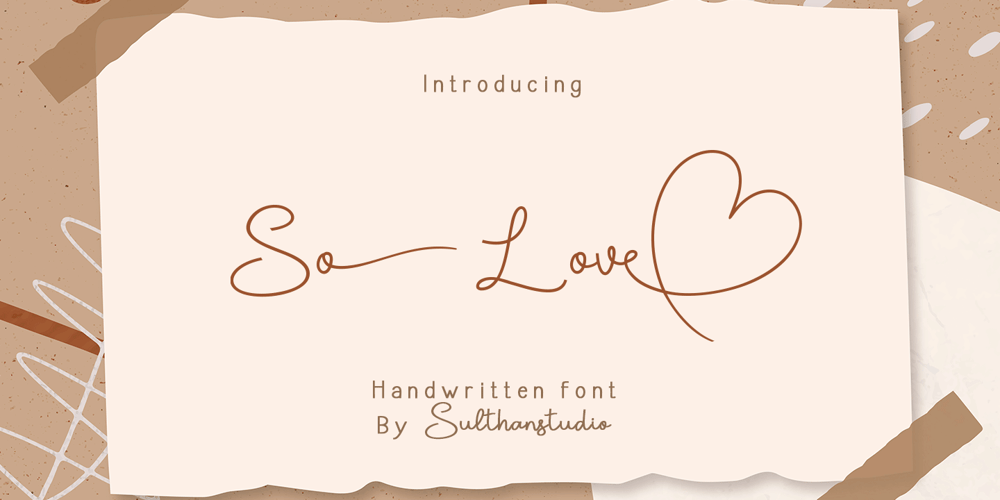
So love Font Family was designed by Nasrullah and published by Sulthan Studio. So love contains 1 styles and family package options. So Love is a cute and adorable handwritten script font. It’s perfect for branding, logos, wedding invitations, diaries, cups, mugs, greeting cards, and more.